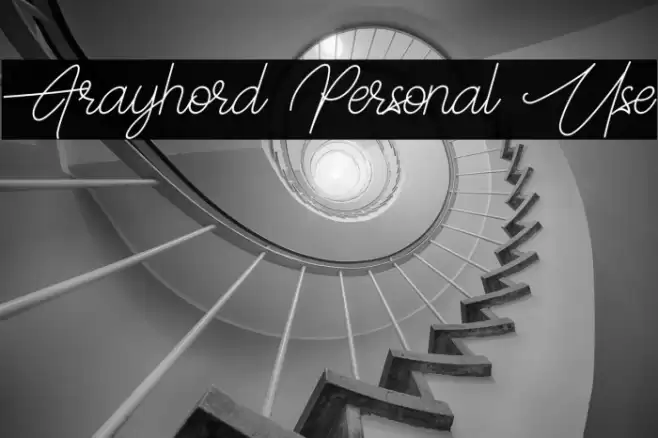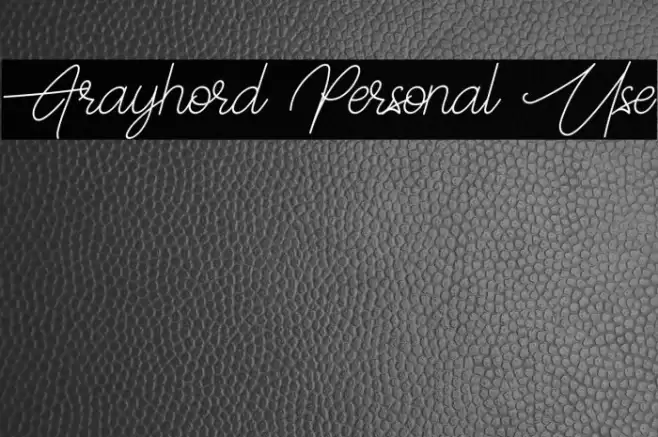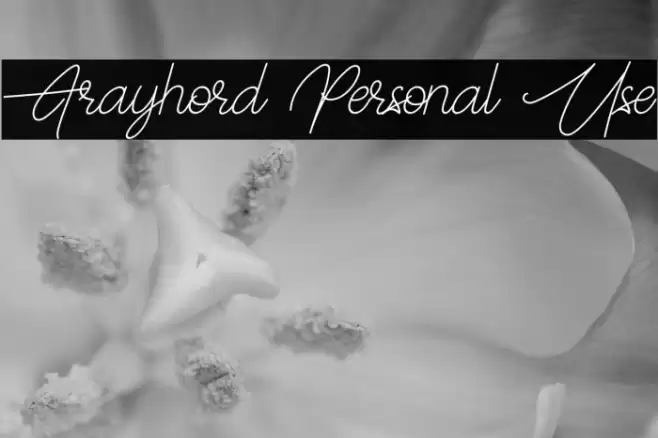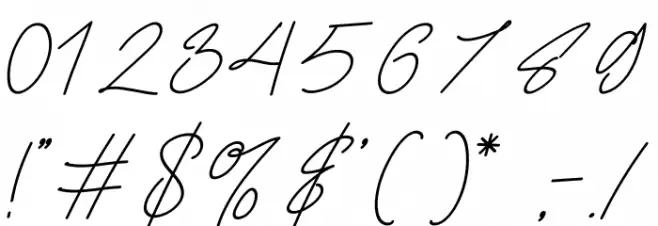
Frayhord Personal Use Font
Frayhord Personal Use Description
This font features a fluid, cursive style that mimics elegant handwriting. The uppercase letters are distinct with a slight slant, giving them a sophisticated and graceful appearance. The lowercase letters maintain a consistent flow, enhancing readability while preserving the handwritten aesthetic. Numbers and special characters are designed to complement the alphabet, maintaining the same flowing style. The overall design is both modern and timeless, making it suitable for various creative applications.
A fluid, cursive font with a modern handwritten style from Regular fonts.
- Proposed Projects: Ideal for wedding invitations, personal branding, greeting cards, and elegant logo designs.
- Use Case: Logos, Invitations, Personal Branding